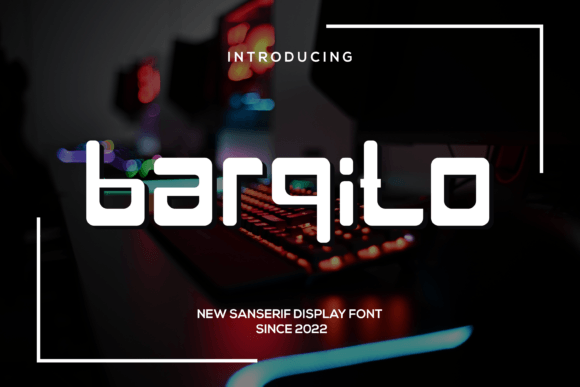
Step into a sonic wonderland where melodies dance with letters in the Barqito Font—a display font that's as cool, modern, and interesting as the music it's designed to embody. Crafted with meticulous detail by the talented riotj, Barqito is not just a font; it's a symphony of visual aesthetics.
Imagine your music posters adorned with this remarkable font, their every curve and stroke echoing the rhythm and soul of your favorite tunes. Barqito's clean lines and sharp angles capture the essence of musical energy, making your posters veritable works of art. The font's distinct character dances across the page, drawing the eyes and hearts of all who behold it, and igniting a passion for music in their souls.
With Barqito as your creative ally, you'll effortlessly craft posters that resonate with music lovers worldwide. Its versatility extends beyond music posters, making it an ideal choice for album covers, concert flyers, and any other project where the fusion of sight and sound takes center stage. Unleash your creativity and let the Barqito Font orchestrate a visual masterpiece that echoes the beauty of your music.
Barqito is more than just a display font; it's an invitation to embark on a sensory journey where music and design intertwine. It's a font that breathes life into your creative endeavors, transforming them into captivating expressions that linger in the minds of your audience.
Don't settle for ordinary fonts that fade into the background. Embrace the captivating allure of Barqito and watch your music posters come alive with a vibrant energy that speaks to the soul. Discover the harmonious blend of aesthetics and functionality that makes Barqito the ultimate choice for music enthusiasts and design aficionados alike.